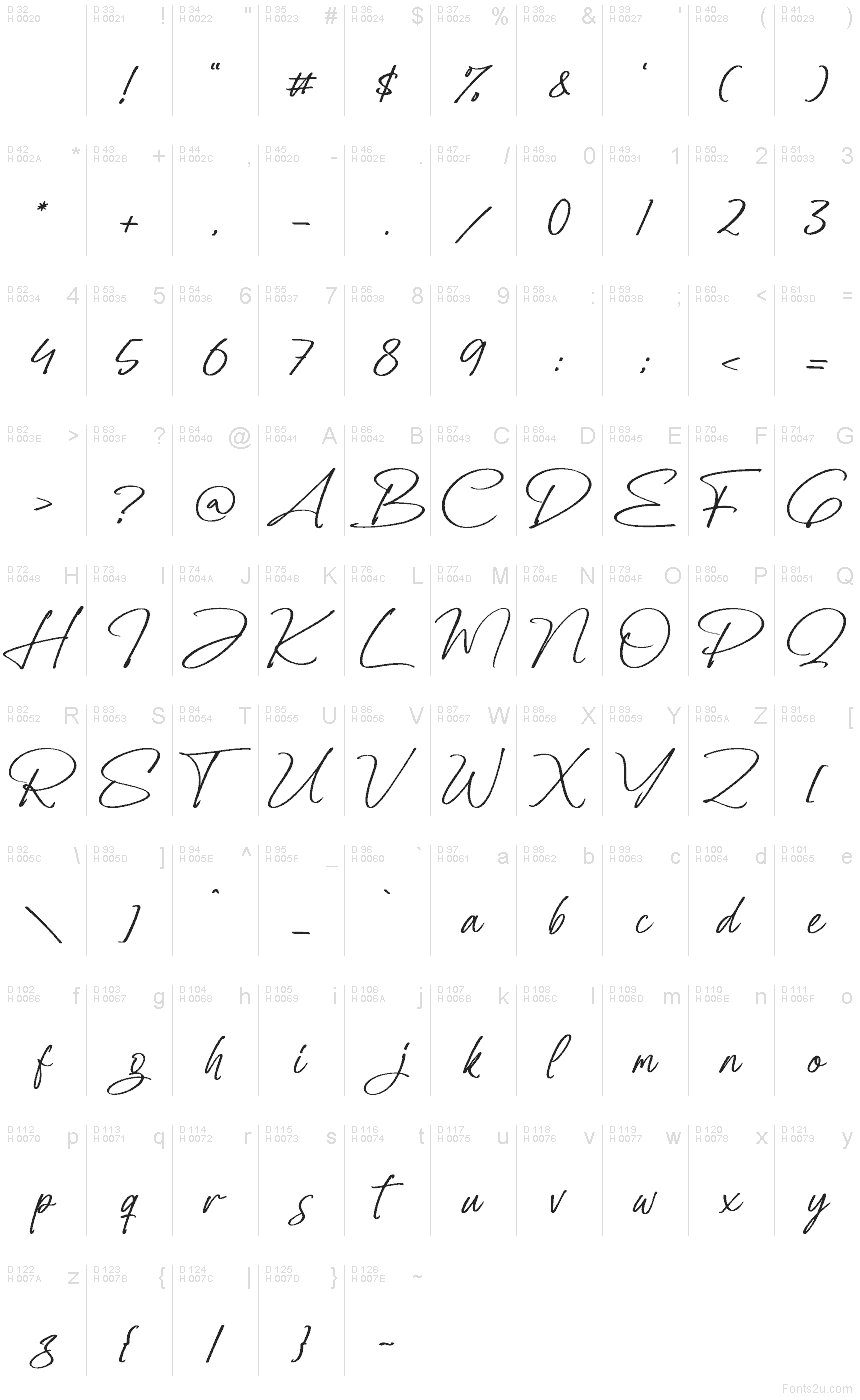
Kaleesha Mayolla
Kaleesha Mayolla font by Integritype Studio is an elegant, flowing, and modern script with graceful curves and a personalized appearance. This free handwritten font has a light weight with a stylish and delicate look where its continuity enhances the elegance of its letters making every project it’s used in appear as extraordinary as it should.
Enjoy using this font to create book covers, inspirational quotes posters, event invitations for weddings and bridal showers, advertisements designed for branding or packaging purposes, stationery designs like personal or business cards, wall art pieces, or notebook covers. Design social media posts in a unique trend that captivates users further while seeing your brand rise to new heights when using this versatile font in your logos.